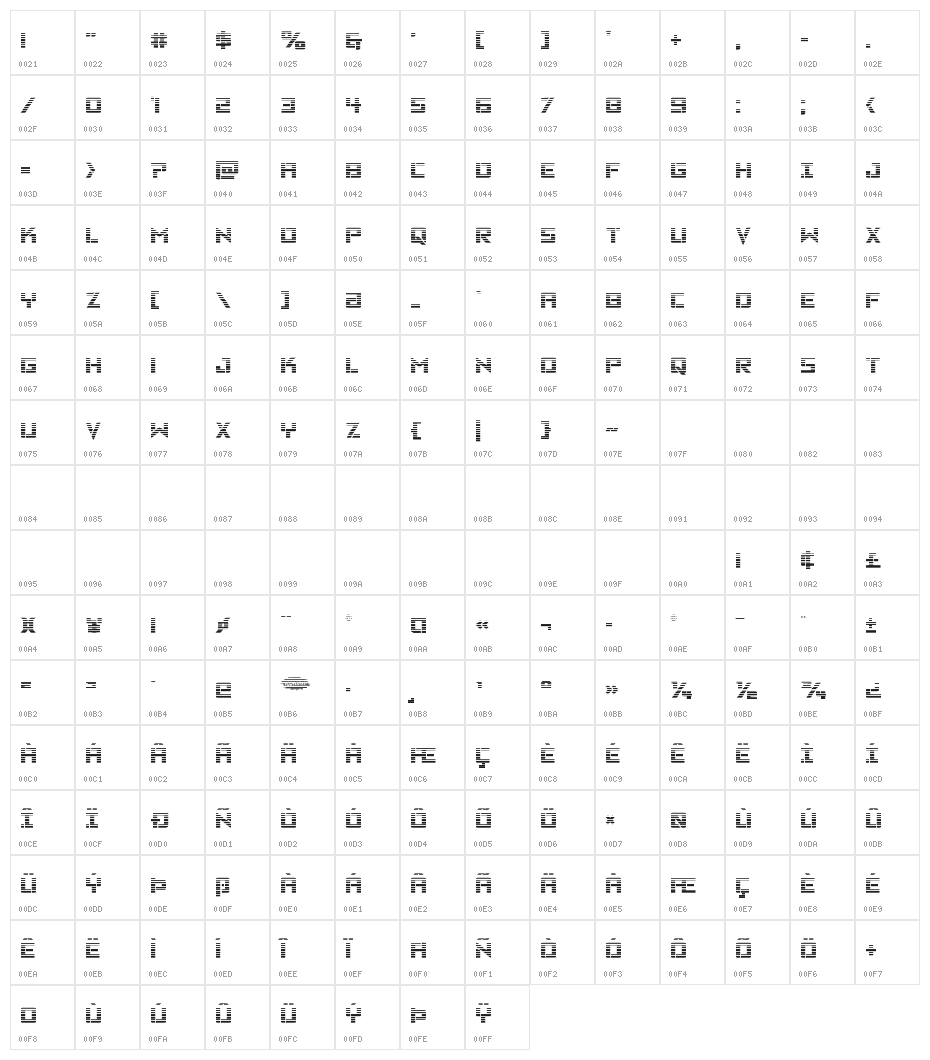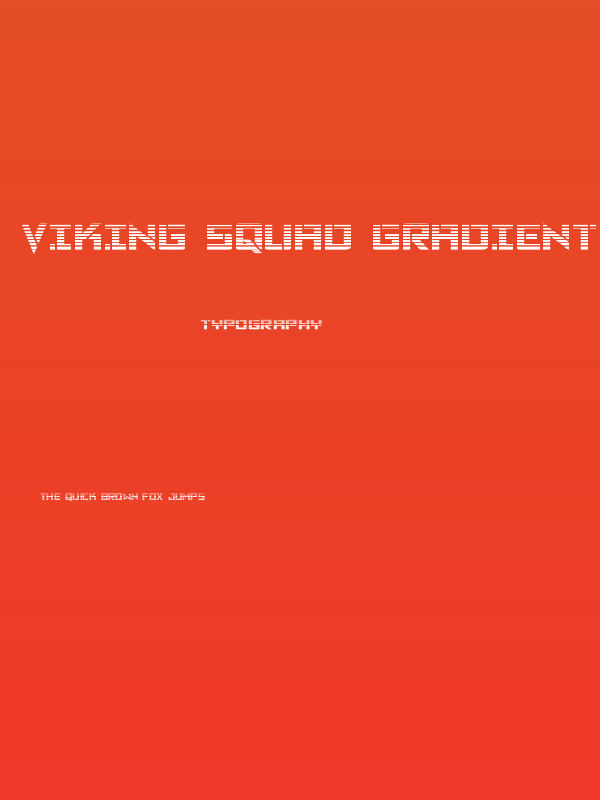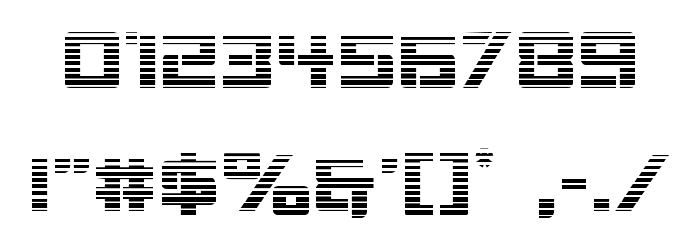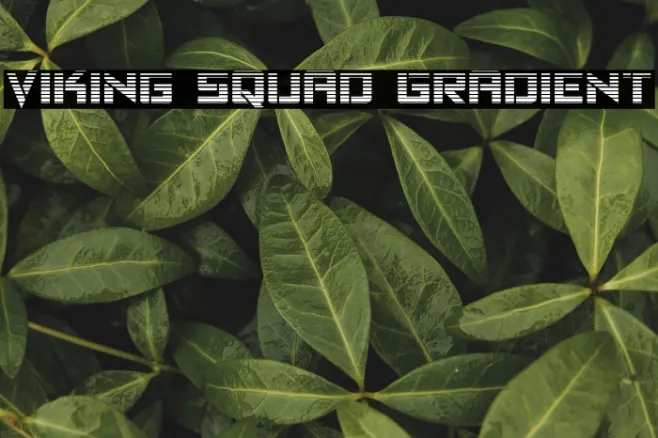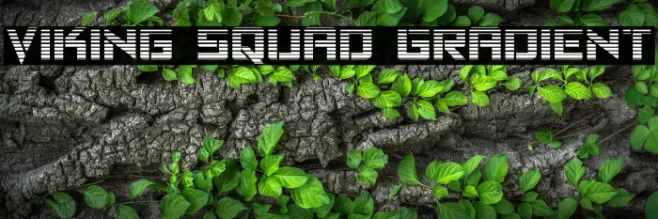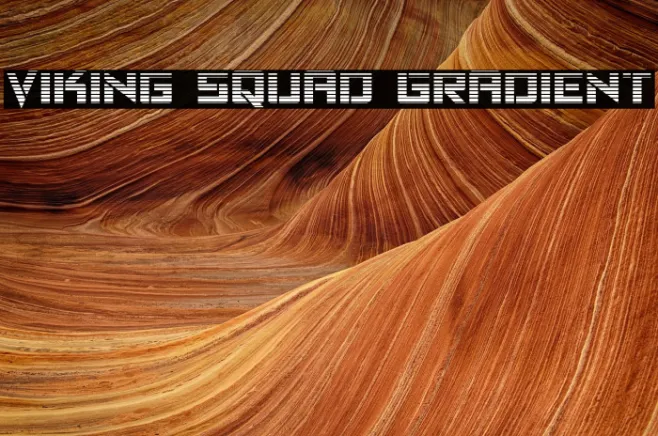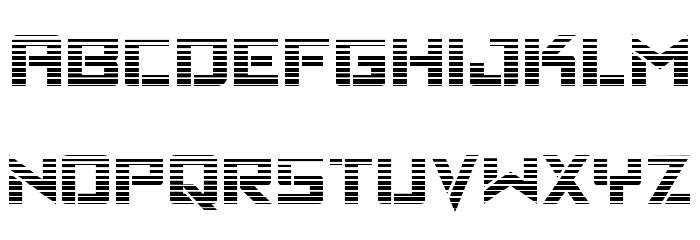
Viking Squad Gradient Font
Viking Squad Gradient Description
This font features a bold and striking design with a unique striped pattern running horizontally through each character. The geometric shapes and sharp angles give it a futuristic and digital appearance, reminiscent of retro video game aesthetics. The uppercase and lowercase letters maintain a consistent style, with numbers and special characters following suit. The uniformity in the design creates a cohesive look that is both eye-catching and memorable. Its distinctive style makes it suitable for projects that require a modern and edgy touch.